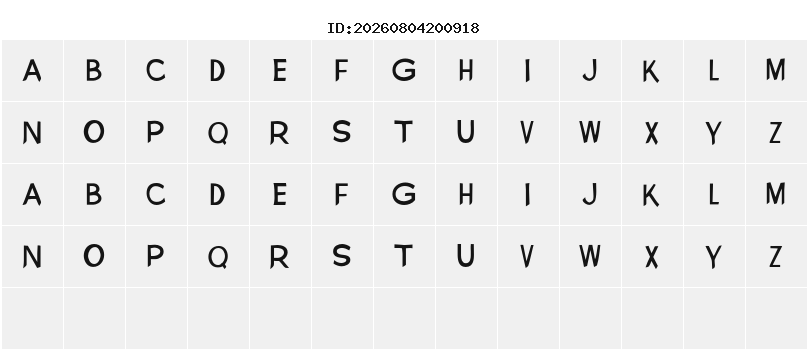
New Visions Preview
• Font Name: New Visions
• Full Font Name: NewVisions-Regular
• Designer: =^_^=
• Manufacturer: skyhaven
About New Visions.otf
New Visions.otf is a modern, elegant sans-serif font designed for ultimate readability and visual harmony. Perfect for branding, headlines, web design, and print materials.